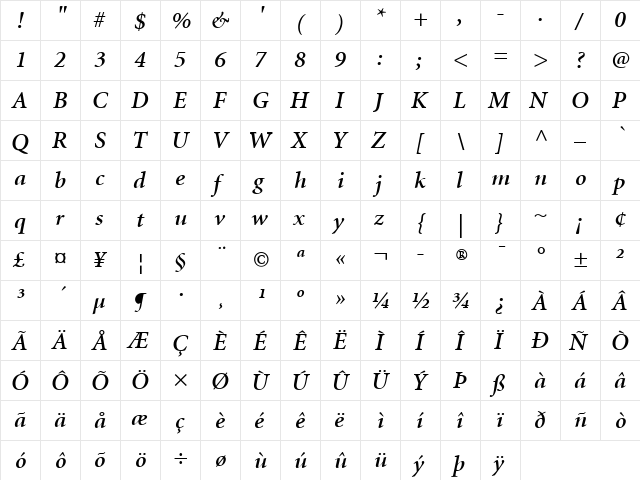
Minion LT Bold Italic Font Preview
Design Context for Minion LT Typeface
Minion LT takes a measured approach to typography — its balanced proportions and neutral character make it a reliable workhorse for both digital and print work. Its italic angle brings a sense of urgency and motion to the letterforms. The heavy weight commands attention and anchors typographic hierarchies.
Pro Tip: Try Minion LT for annotation and caption copy alongside an upright companion — the contrast in angle creates a dynamic but ordered typographic system.